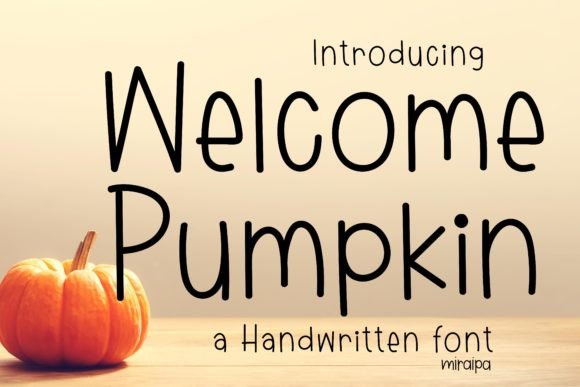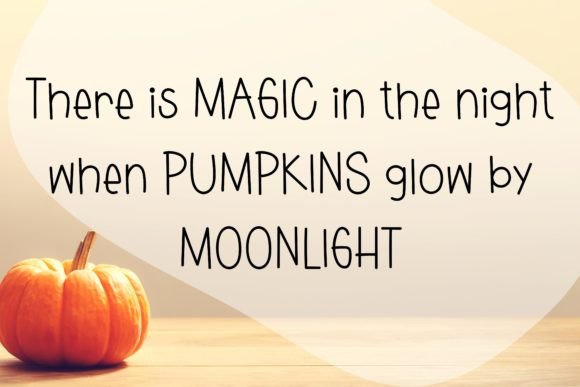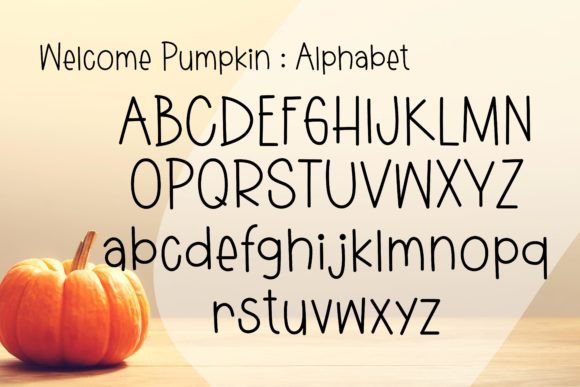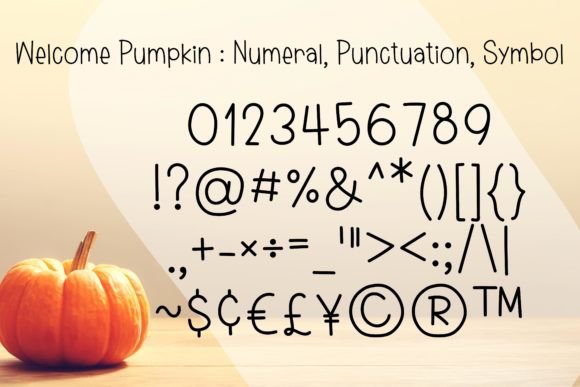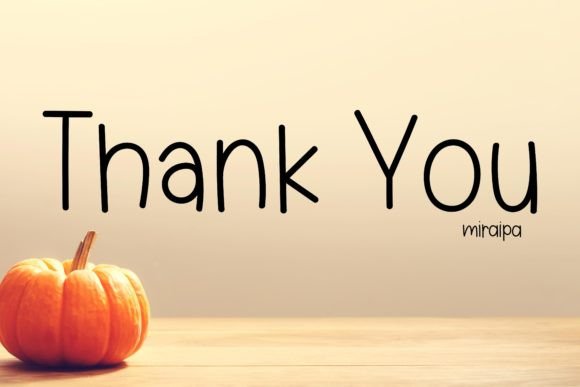
About Welcome Pumpkin Font
Meet Pukka Roundish, a font that radiates fun and whimsy, capturing the essence of impeccable friendliness. Whether you’re delving into crafts, crafting digital designs, preparing presentations, or creating delightful greeting cards, Pukka Roundish is poised to become your ultimate go-to font for any occasion!
This charming handwritten font adds a playful touch to your projects, infusing them with a lighthearted and approachable vibe. Its unique style makes it versatile, fitting seamlessly into various design contexts. The rounded edges and flowing strokes of Pukka Roundish give it a distinctive personality, making your text not only visually appealing but also incredibly inviting.
Picture yourself using Pukka Roundish to bring life to your crafting endeavors, injecting creativity into every stroke. Its friendly demeanor makes it suitable for a wide range of applications, allowing you to experiment and create eye-catching designs that leave a lasting impression.
The adaptability of Pukka Roundish shines through in its compatibility with different mediums. Whether you’re working on digital platforms or diving into hands-on projects, this font effortlessly adapts to your creative needs. Its versatility ensures that it’s not just a font; it’s a tool that enhances your ability to express joy and warmth through your designs.
Consider making Pukka Roundish a staple in your font collection, ready to be employed whenever you want to infuse your projects with a touch of cheerfulness. No matter the occasion, this font stands ready to elevate your creations, making them memorable and delightful.
In summary, Pukka Roundish isn’t just a font; it’s a whimsical companion for your creative journey. Embrace the friendliness it exudes and let it become the magic touch that transforms your crafts, digital designs, presentations, and greeting cards into expressions of joy and creativity. Make Pukka Roundish your favorite font, and watch your projects come alive with charm and personality!